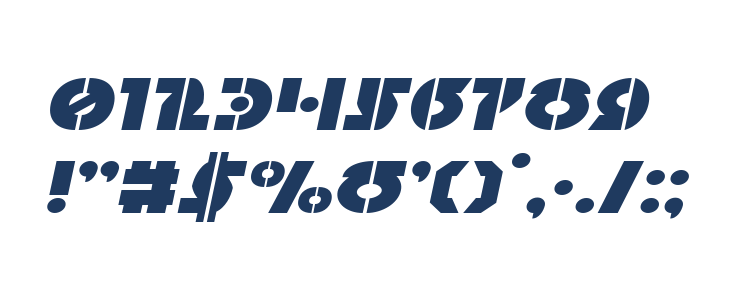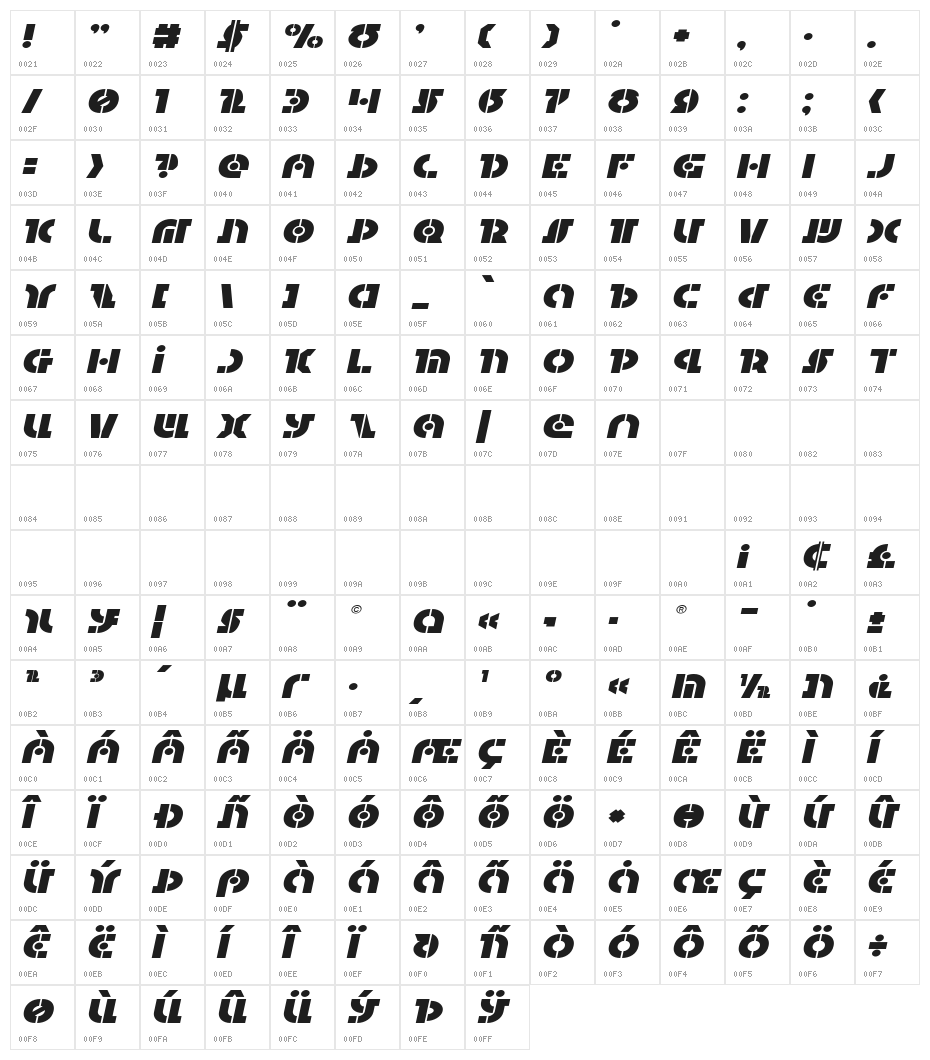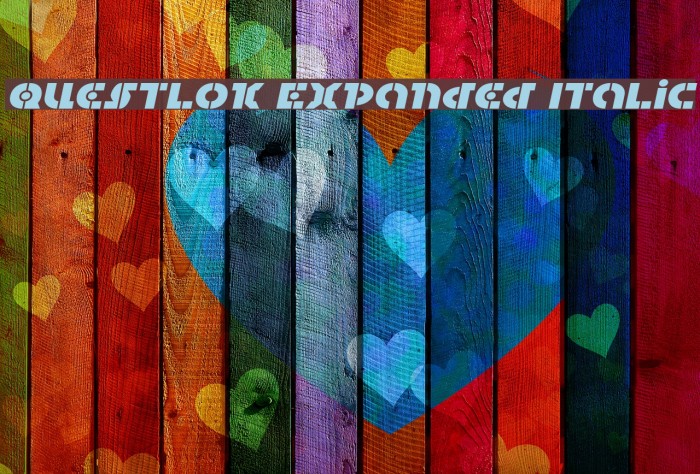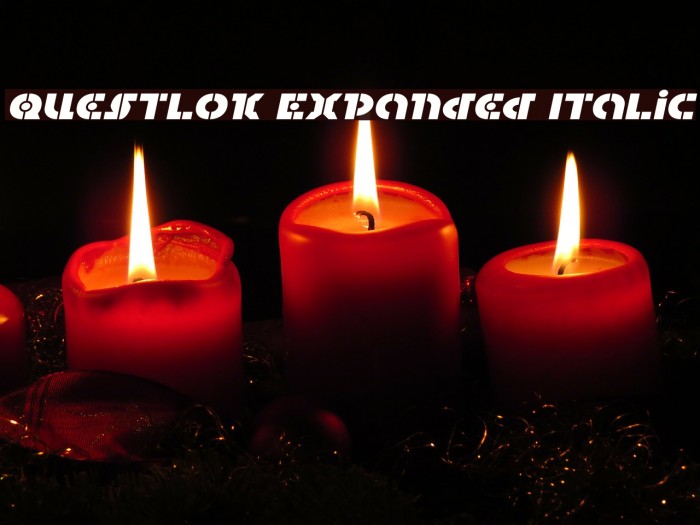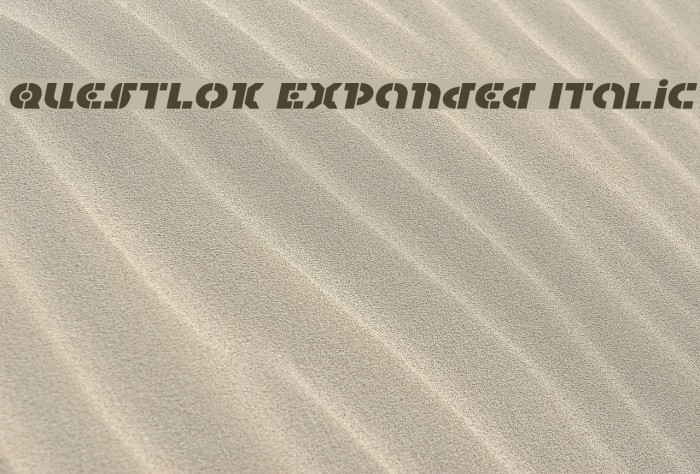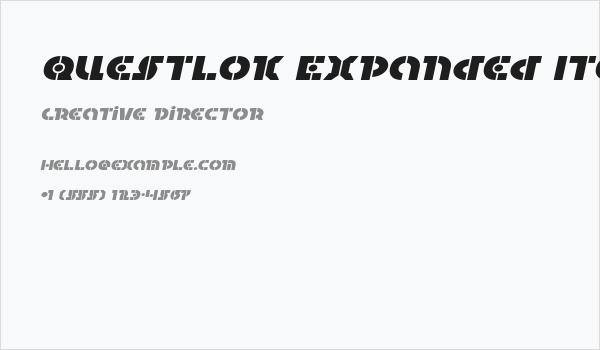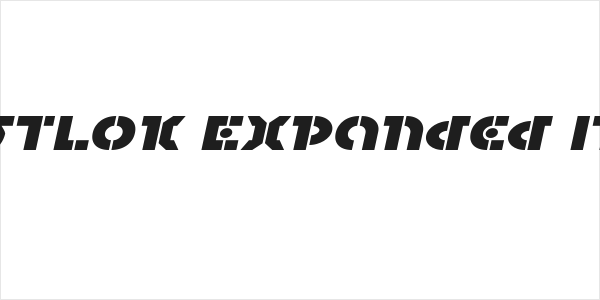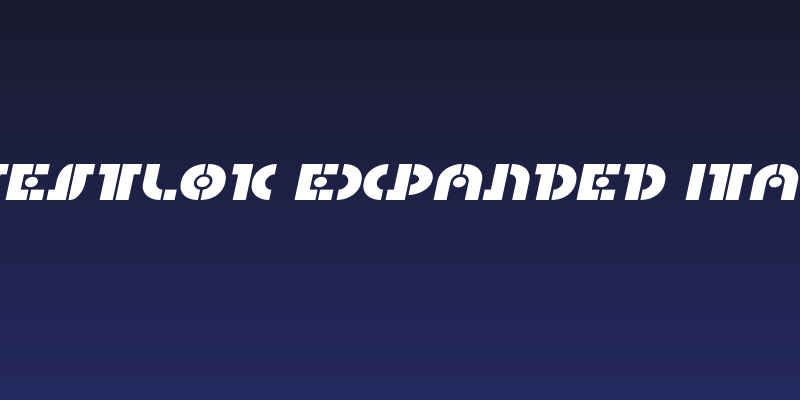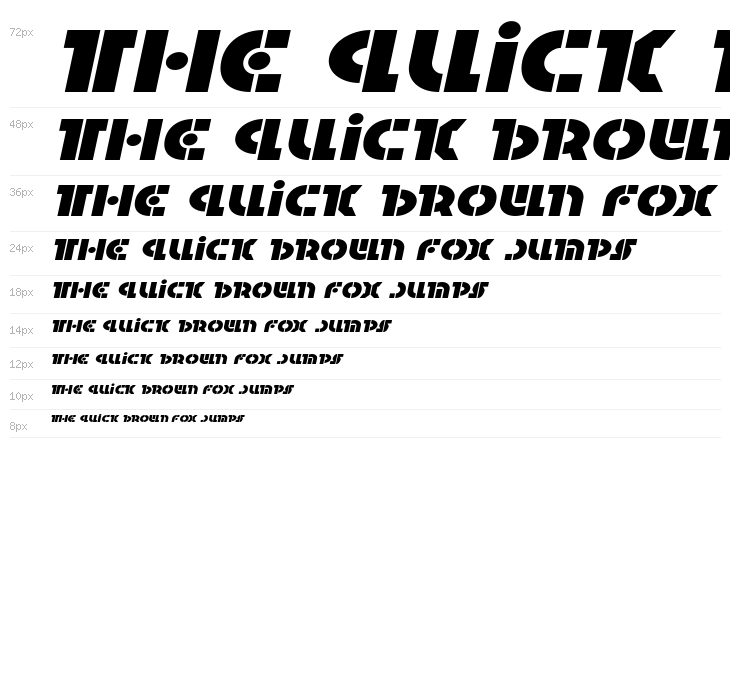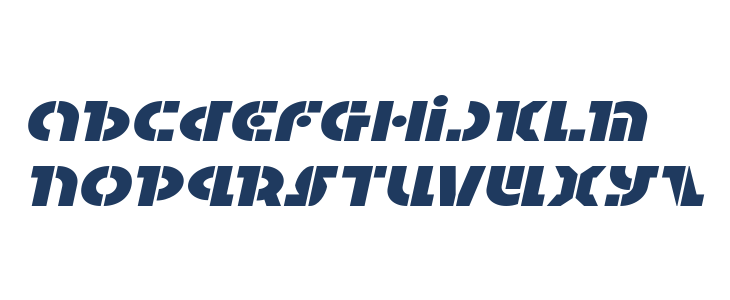
Questlok Expanded Italic Font
Questlok Expanded Italic Description
This font features a bold and dynamic style with an expanded and italicized form. The characters are constructed with geometric shapes, creating a futuristic and edgy appearance. The use of sharp angles and curves gives it a unique, almost stencil-like quality. The uppercase and lowercase letters maintain a consistent design, while the numbers and special characters complement the overall aesthetic. This font is highly distinctive, making it suitable for attention-grabbing designs.
| Proposed Projects | Ideal for sci-fi themed projects, modern branding, poster designs, and video game titles. |